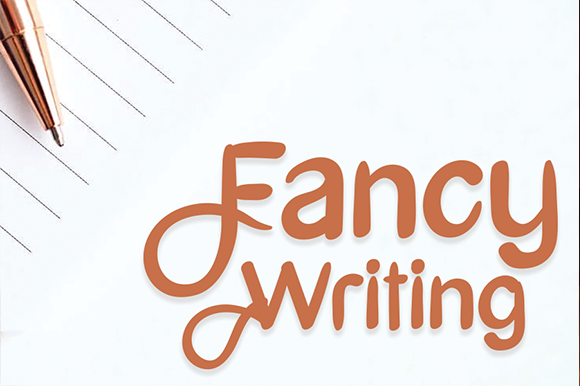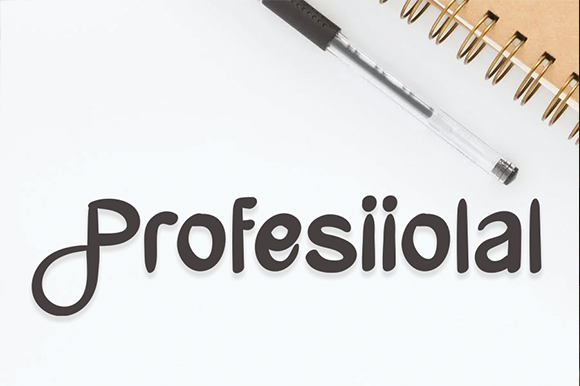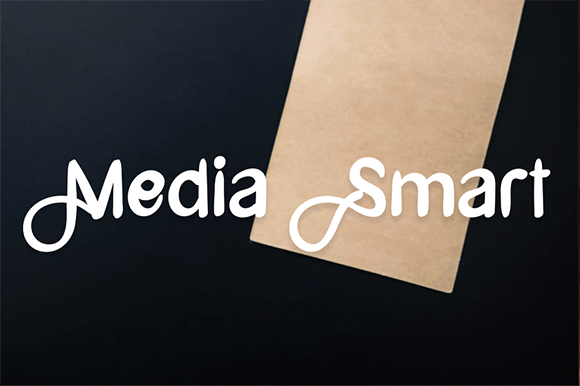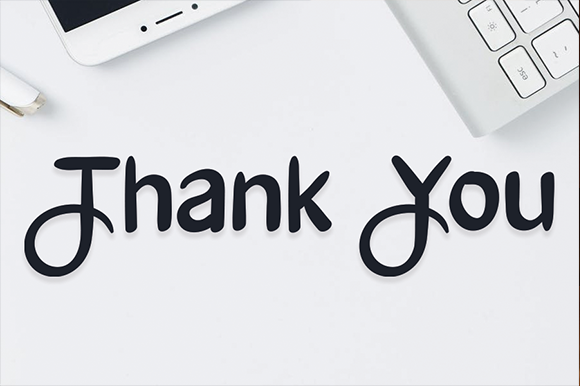
About Student Art Font
Student Art is a classic handwritten font, carefully handcrafted to become a true favorite. Its casual charm makes it appear wonderfully down-to-earth, readable and, ultimately, incredibly versatile. It will elevate a wide range of design projects to the highest level, be it branding, headings, wedding designs, invitations, signatures, logos, labels, and much more!